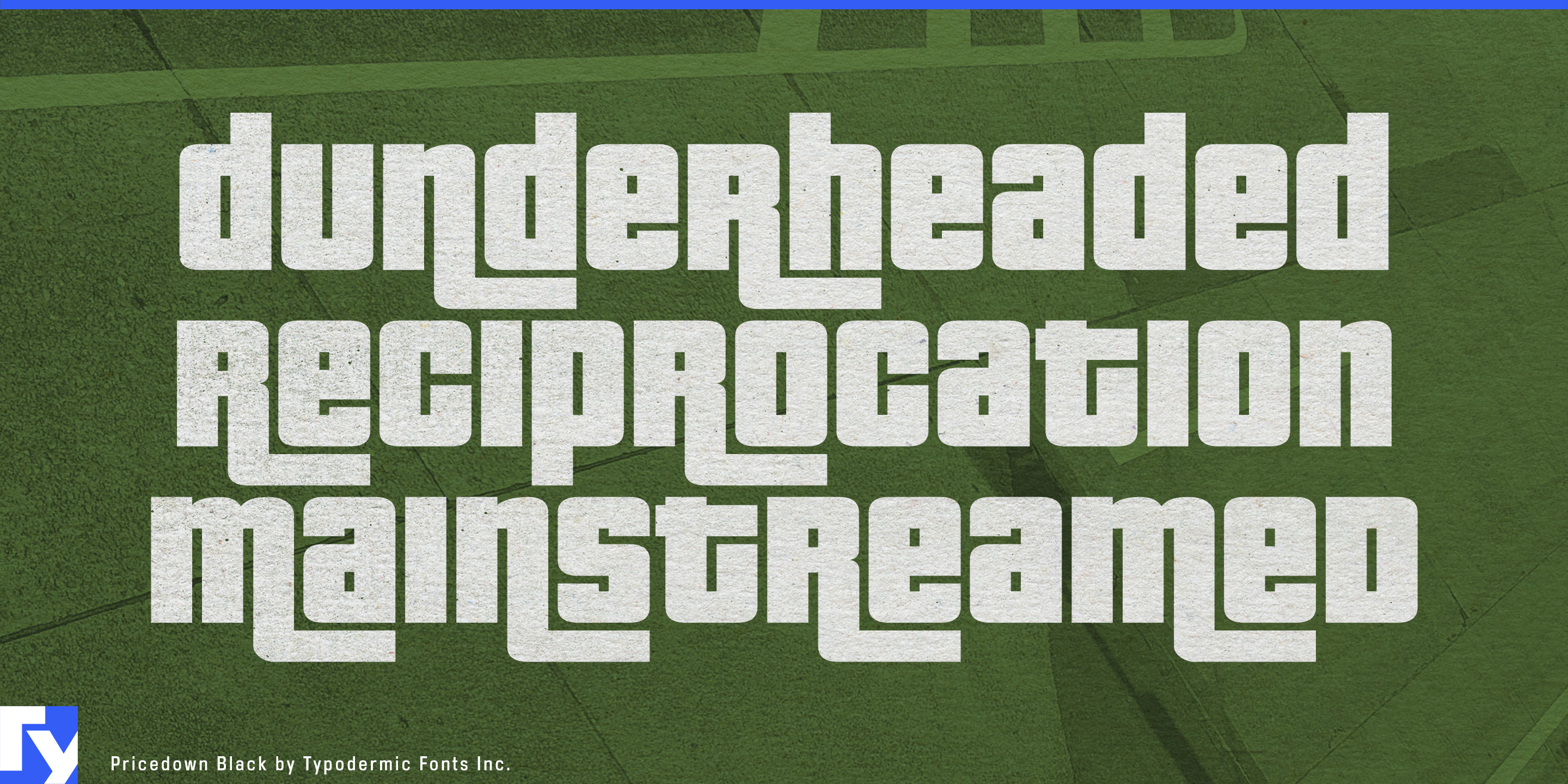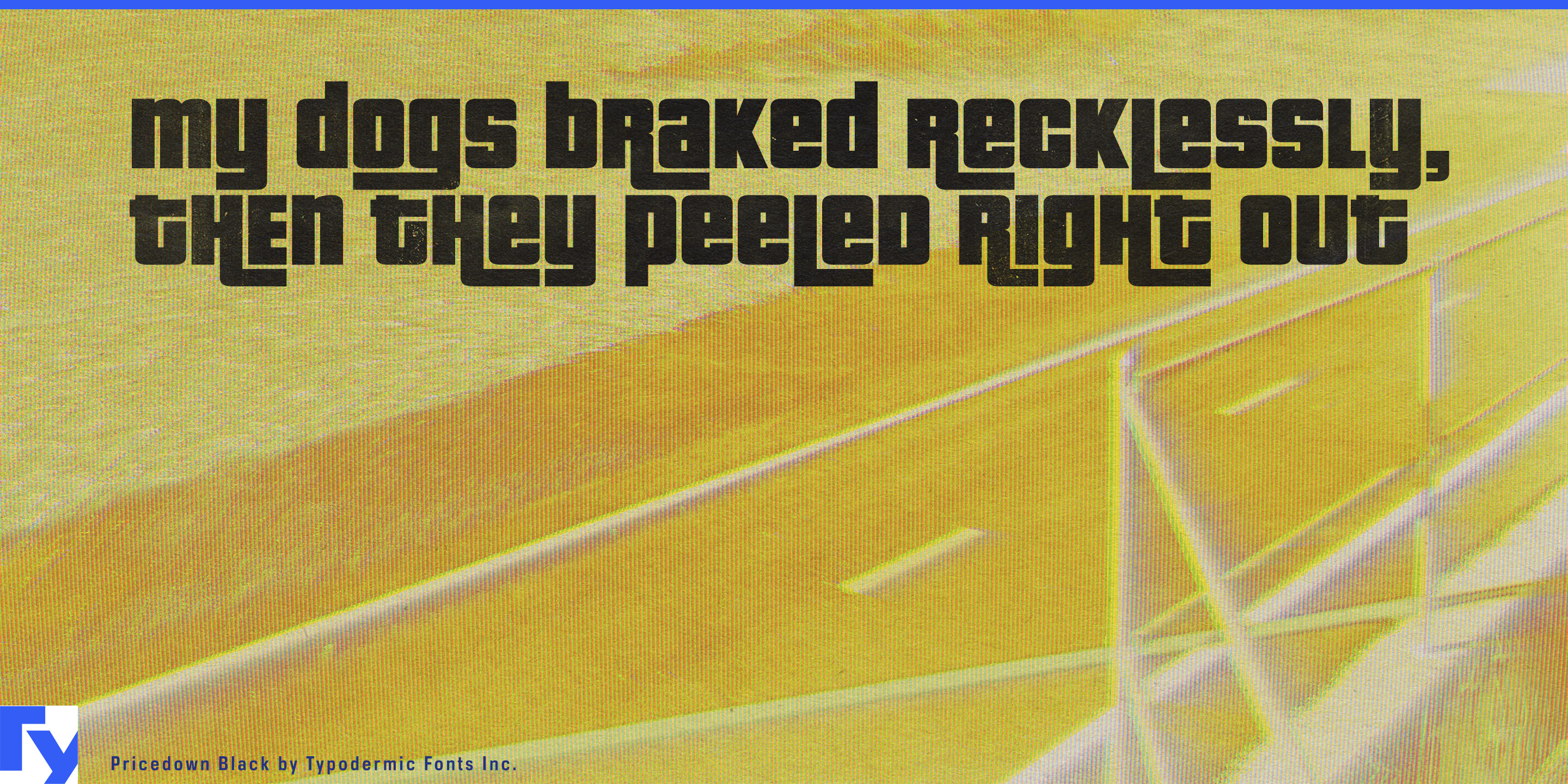
Pricedown
Pricedown is often recognized through its dense, heavy styles, but the lighter weights reveal a very different side of the same construction. As the strokes thin out, rectangular loops, extended lines, interlocking forms, and swashes become more exposed. Hairline, Thin, and Extra-Light can suggest bent light, illuminated tubing, or continuous graphic paths while remaining unmistakably part of the family.
That makes Pricedown particularly useful for nightclub identities. A venue may run weekly residencies, guest-DJ series, named rooms, anniversary events, membership programs, and changing artist lineups across exterior signs, LED walls, projection graphics, social campaigns, wristbands, guest-list screens, and event calendars. Lighter Pricedown styles can establish the recurring visual language, while progressively heavier weights provide stronger levels for major artists, event names, and headline moments.
At large sizes, the long horizontal runs and rectangular turns become graphic material in their own right. They can stretch across an LED wall, frame a lineup, run through an animated title sequence, or become an illuminated entrance mark without carrying the visual mass of the heavier styles.
Electronic-music labels and artist collectives face a similar problem. Release-series names, artist rosters, compilation titles, catalogue graphics, showcase nights, streaming artwork, physical editions, and merchandise need to remain recognizably related without repeating one fixed logo. Pricedown’s weight range and interlocking forms can turn those changing names into parts of a larger system.
Touring club events and electronic-music festivals extend the same language into stage names, artist announcements, timetable headings, accreditation, LED backdrops, and motion packages. The lighter styles are especially useful when many names need to coexist while retaining a distinctive structural connection.
The visual language also transfers naturally to the equipment behind the room. DJ controllers, mixers, headphones, club sound systems, lighting fixtures, lasers, and LED equipment need product names, model identifiers, control-surface graphics, cartons, trade-show displays, and launch campaigns. The linear weights can sit comfortably on physical equipment, while heavier Pricedown styles take over in the promotional graphics surrounding it.
Pricedown’s full range lets an identity move through several levels of intensity without abandoning its rectangular construction and interlocking behavior. For clubs, electronic-music labels, touring events, audio hardware, and light-based environments, the lighter weights can carry the system while the heavier styles are reserved for moments that need maximum density.